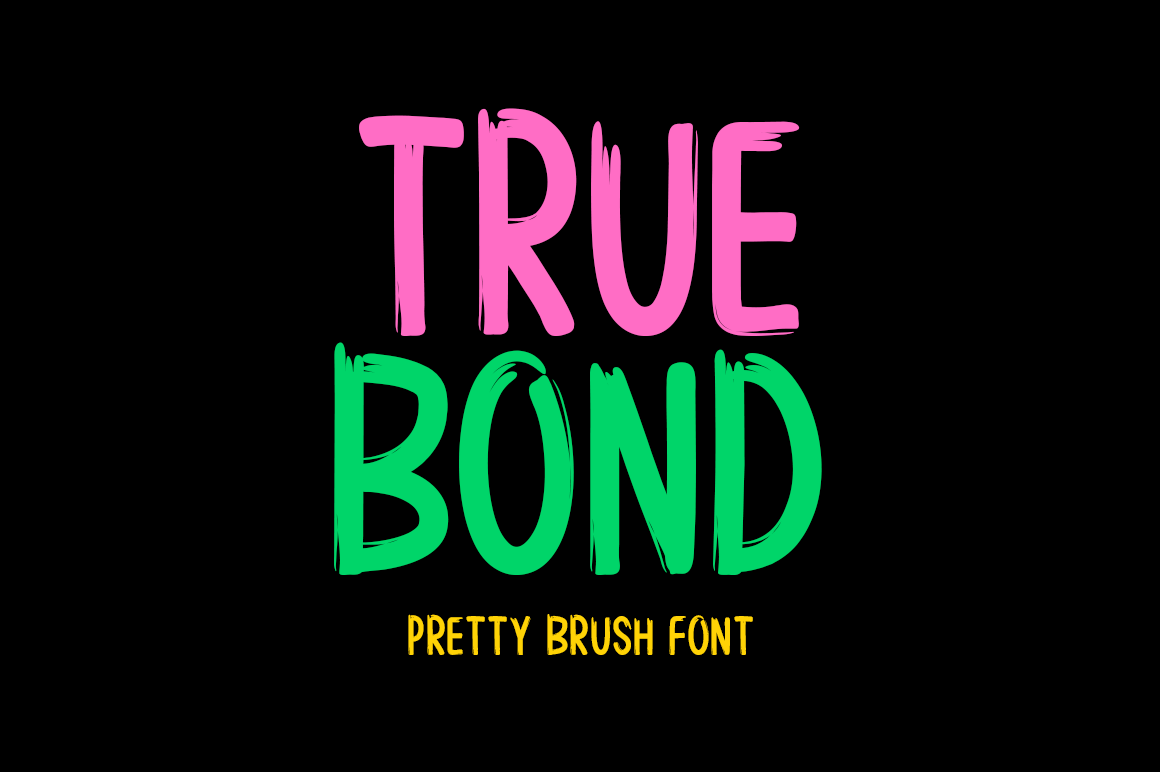
True Bond Typeface
Introducing True Bond!
A compelling brush display font, True Bond is made to give your projects an upscale look. Because of its versatility, it may be easily incorporated into a variety of design projects, fostering your creativity and showcasing your best work.
Includes a range of multilingual support